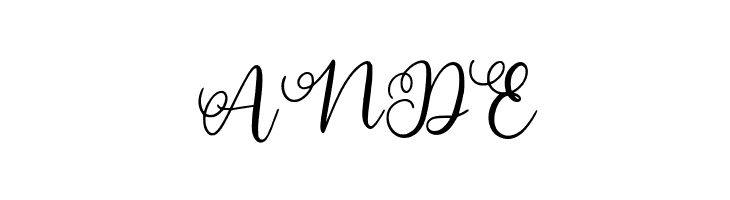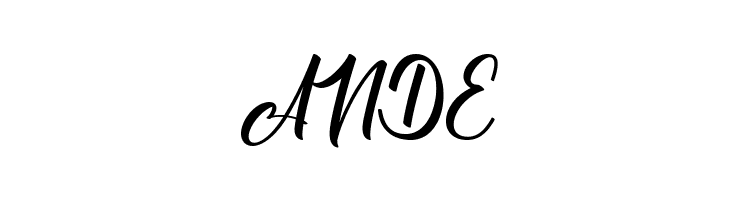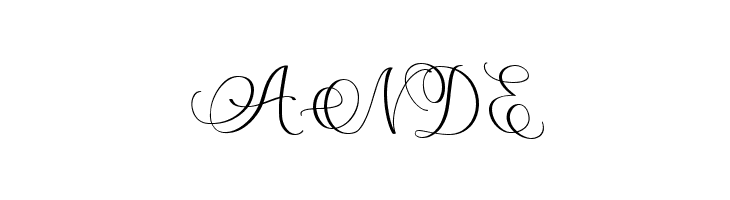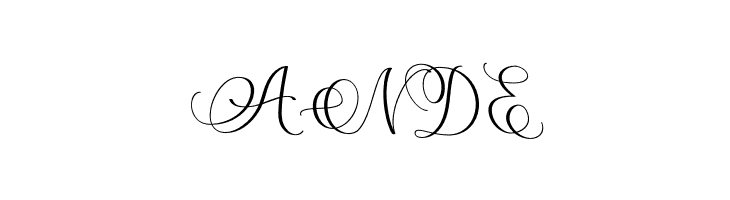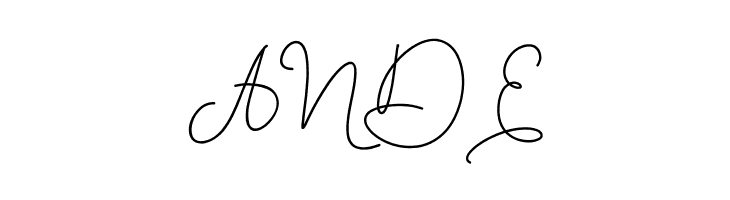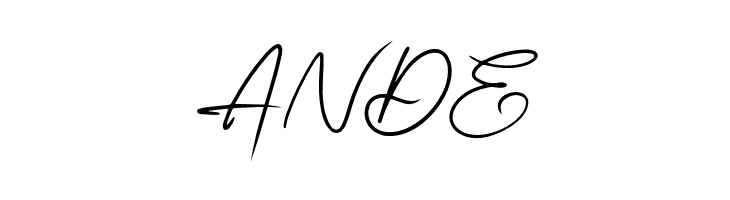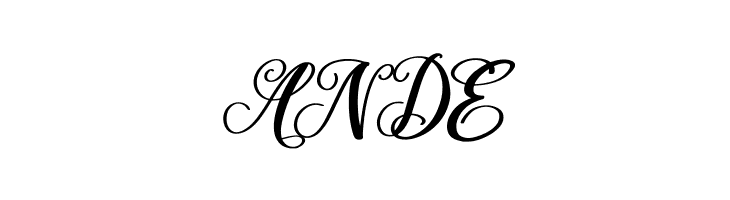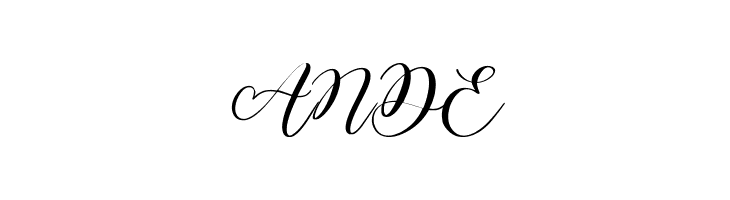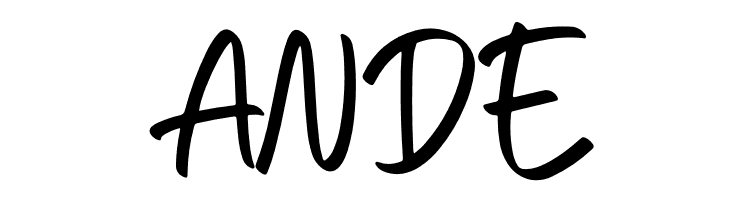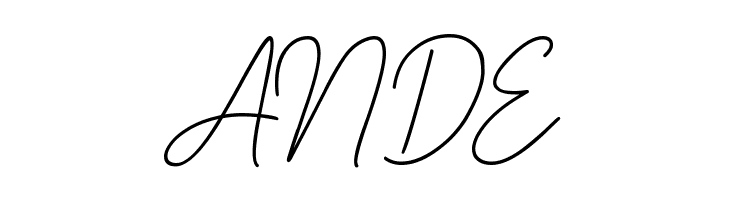
• Angelin
An elegant, flowing script font with intricate uppercase and smooth lowercase letters.
• Angelin Heart Personal Use
A cursive, handwritten font with elegant curves and a bold presence.
• angelina
An elegant, flowing script font with smooth, cursive strokes and graceful curves.
• Angelina Alt Demo
A bold, flowing script font with elegant, cursive strokes.
• Angelina Demo
A playful, hand-drawn script font with smooth, flowing curves.
• Angelina Personal Use
A flowing, elegant script font with a handwritten style and decorative swashes.
• Angelina Rahmy
A flowing, cursive script font with elegant, connected characters.
• Angelina Rahmy
A graceful script font with fluid, cursive strokes and a sophisticated style.
• Angelinas
A cursive, handwritten font with elegant, flowing strokes.
• Angelinas
A modern, elegant script font with flowing, cursive strokes.
• Angelinatta Personal Use Only
A modern, elegant script font with flowing curves and sophisticated style.
• Angeline
A graceful script font with elegant loops and swirls.
• Angelinea
A sophisticated script font with elegant, flowing cursive letterforms.
• Angeliny Regular
An elegant script font with intricate swirls and flowing strokes.
• Angeliny Regular
An elegant script font with intricate swirls and decorative flourishes.
• Angelis Regular
A classic, elegant script font with flowing, cursive letterforms.
• Angelis-Regular
A flowing, cursive script with elegant, interconnected letters.
• Angelisa
A playful and elegant script font with flowing cursive design and decorative flourishes.
• Angelista - Personal Use
A cursive, elegant script font with interconnected letters and smooth strokes.
• Angelita
A sophisticated script font with elegant loops and swashes, perfect for decorative use.
• Angelitta